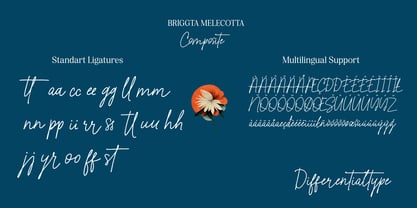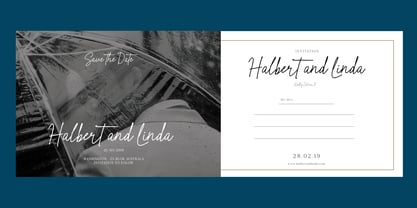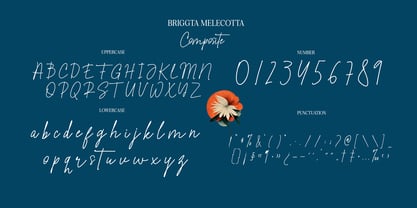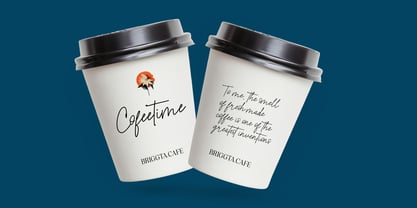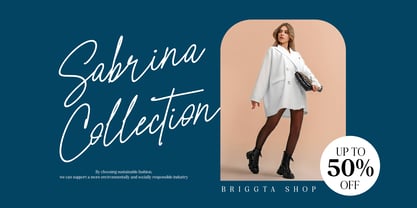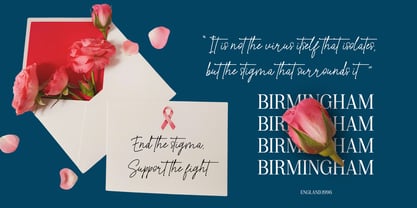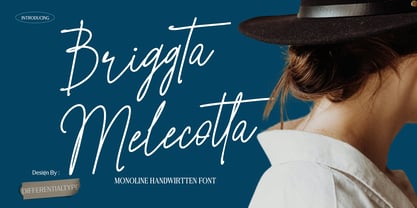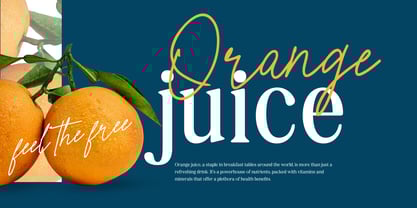
Briggta Melecotta
by Differentialtype
The Briggta Melecotta Font Family was designed by Sidik Sidik and published by Differentialtype. Briggta Melecotta contains 1 styles. More about this family
Introducing Briggta Melecotta, a unique handwritten font with a signature flair, characterized by its elegant monoline style. Perfect for adding a personal touch to various design projects, this font is ideal for logos, branding, wedding invitations, and more, exuding a sense of warmth, authenticity, and sophistication that makes it an excellent choice for designers seeking to add a touch of luxury and refinement to their work.
Designers: Sidik Sidik
Foundry: Differentialtype